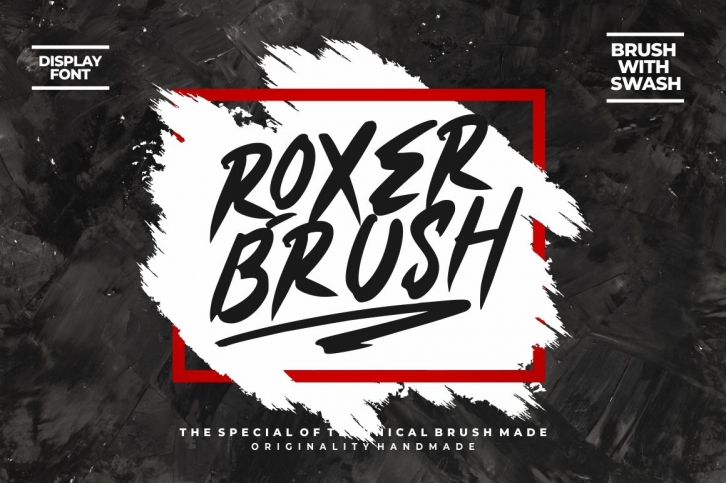
Roxer Handbrush Typeface
Introducing, Roxer - A Handbrush Typeface. This font made from my original handwriting using brush pen then making it digital. So you can create a stunning and natural hand lettering quickly and easily. You can use this font for making an awesome lettering, apparel projects, signature, album cover, logo, branding, magazine, social media, & advertisements, but also works great for other projects.
Comes with feature :
• Number, Punctuation And Symbols
• Multilanguage Support
• Ligature